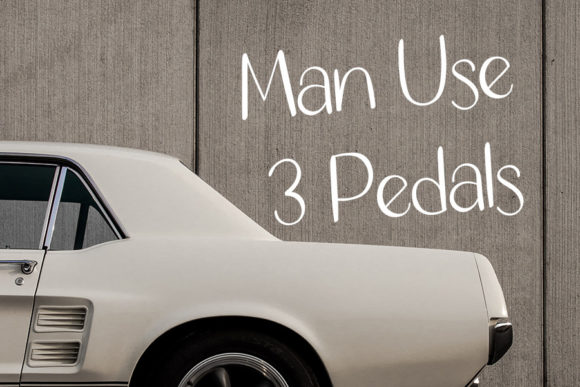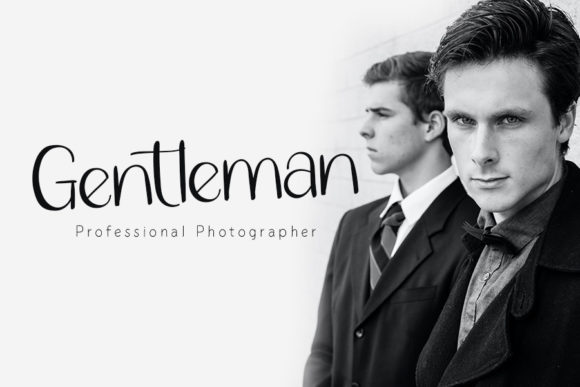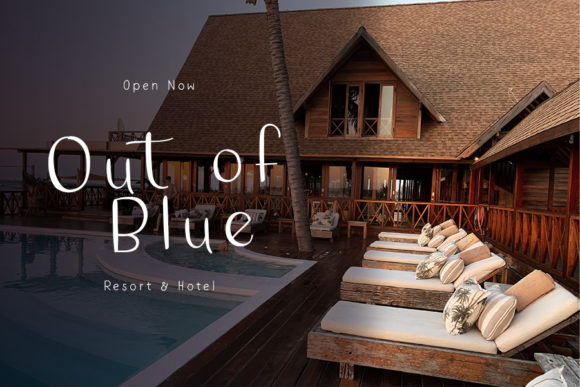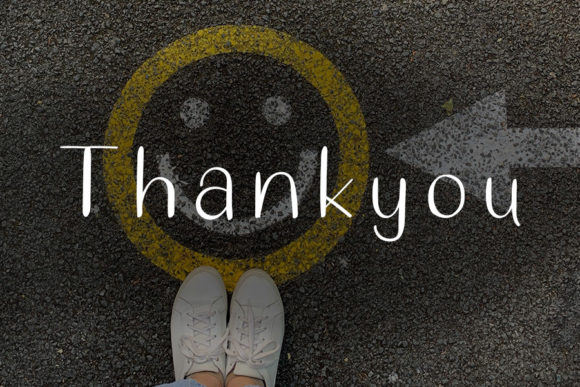
Discover the Timeless Elegance of Antique Font
In the world of typography, few fonts manage to strike a balance between classic elegance and modern flair. Antique Font, however, achieves this delicate balance with remarkable finesse. Described as an elegant script font with a contemporary atmosphere and impeccable form, Antique Font is a versatile and sophisticated typeface designed to elevate the aesthetic of any project.
The Design Philosophy Behind Antique Font
Antique Font was crafted with a clear vision: to create a typeface that embodies both the charm of antique scripts and the clarity of modern fonts. The designers aimed to produce a font that is neither too thin nor too thick, but rather, one that strikes a perfect balance. This balance ensures that Antique Font remains legible and elegant across various applications, from digital screens to print materials.
Key Features of Antique Font
- Balanced and Varied: The font’s strokes are carefully designed to provide a harmonious visual experience. The variation in line widths adds a touch of sophistication and dynamism to the text.
- Elegant Script Style: Antique Font boasts an elegant script style that can add a touch of luxury and refinement to any design. Its classic roots make it an excellent choice for projects that require a traditional feel with a modern twist.
- Contemporary Atmosphere: Despite its antique inspiration, the font maintains a contemporary atmosphere. This makes it highly versatile for use in modern designs, such as branding, advertising, and digital media.
- Impeccable Form: The font’s design focuses on impeccable form, ensuring that each character is meticulously crafted. This attention to detail results in a clean and sophisticated appearance.
Applications of Antique Font
The versatility of Antique Font makes it suitable for a wide range of applications. Designers and crafters can utilize this elegant script font in various projects, including:
- Branding and Logo Design: Add a touch of elegance and sophistication to your brand’s identity with Antique Font. Its unique style can help your brand stand out in a crowded market.
- Stationery and Invitations: Create beautiful and refined stationery, invitations, and greeting cards that exude luxury and class.
- Digital Media: Use Antique Font in digital media such as websites, blogs, and social media graphics to add a touch of sophistication and professionalism.
- Packaging Design: Enhance your product packaging with an elegant and contemporary typeface that captures the essence of your brand.
- Art and Craft Projects: Crafters can use Antique Font in various art and craft projects, such as hand lettering, calligraphy, and mixed media art.
Why Choose Antique Font?
In a world where fonts are abundant and often fleeting, Antique Font stands out for its timeless elegance and versatility. Here are a few reasons why designers and crafters should consider adding Antique Font to their collection:
- Unique Style: Antique Font offers a unique blend of classic and modern elements, making it a standout choice for projects that require a distinctive touch.
- High Legibility: The font’s balanced design ensures high legibility, making it suitable for both body text and headlines.
- Easy to Pair: Antique Font can be easily paired with other fonts to create stunning typography combinations.
| Author | Creassion Studio |
Antique Font is a remarkable addition to the world of typography, offering a perfect blend of elegance, versatility, and modern flair. Whether you’re a designer looking to elevate your branding and marketing materials or a crafter seeking to add a touch of sophistication to your projects, Antique Font is an excellent choice. With its balanced and varied design, elegant script style, and impeccable form, Antique Font is poised to become a timeless classic in the world of design.